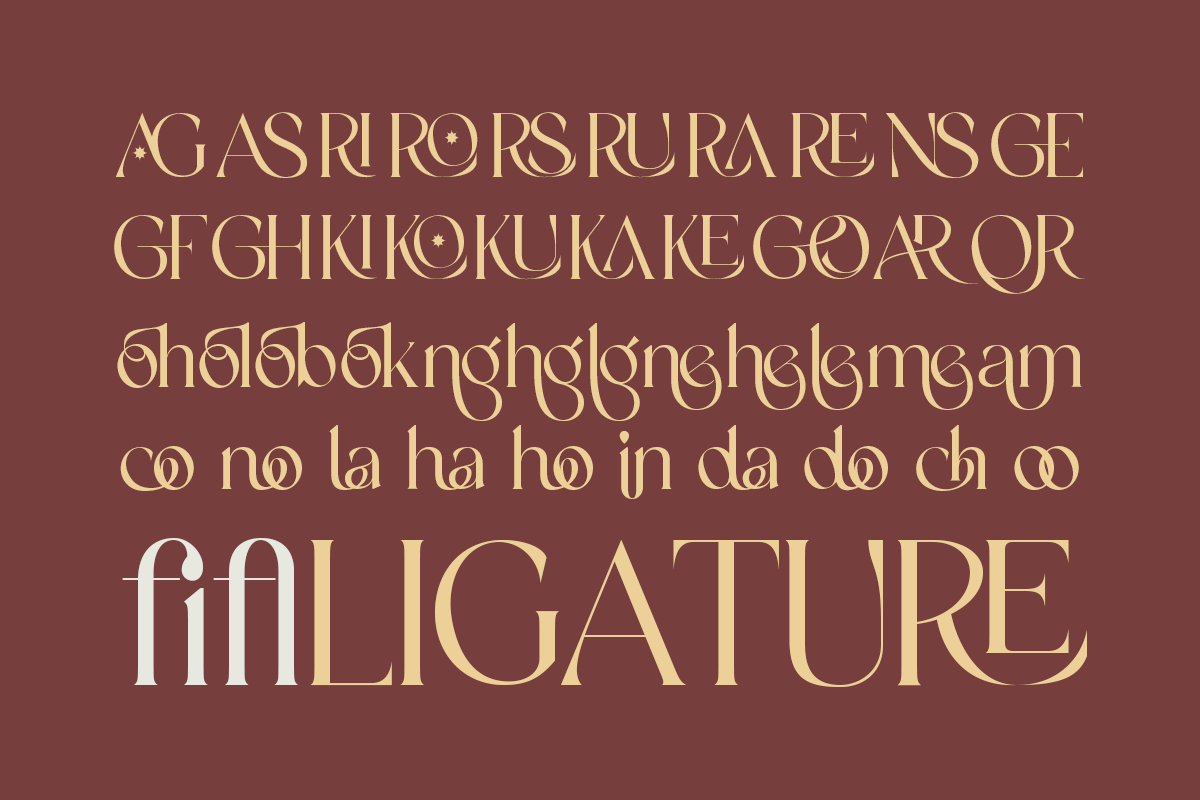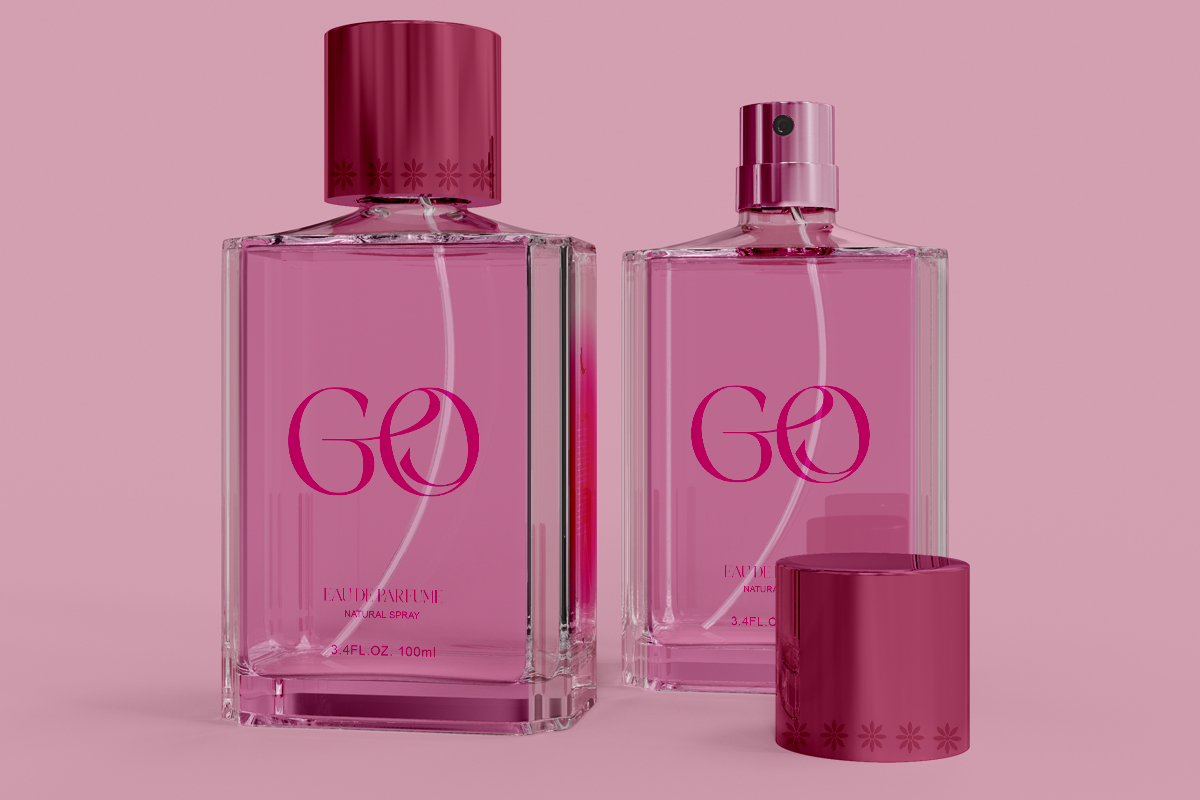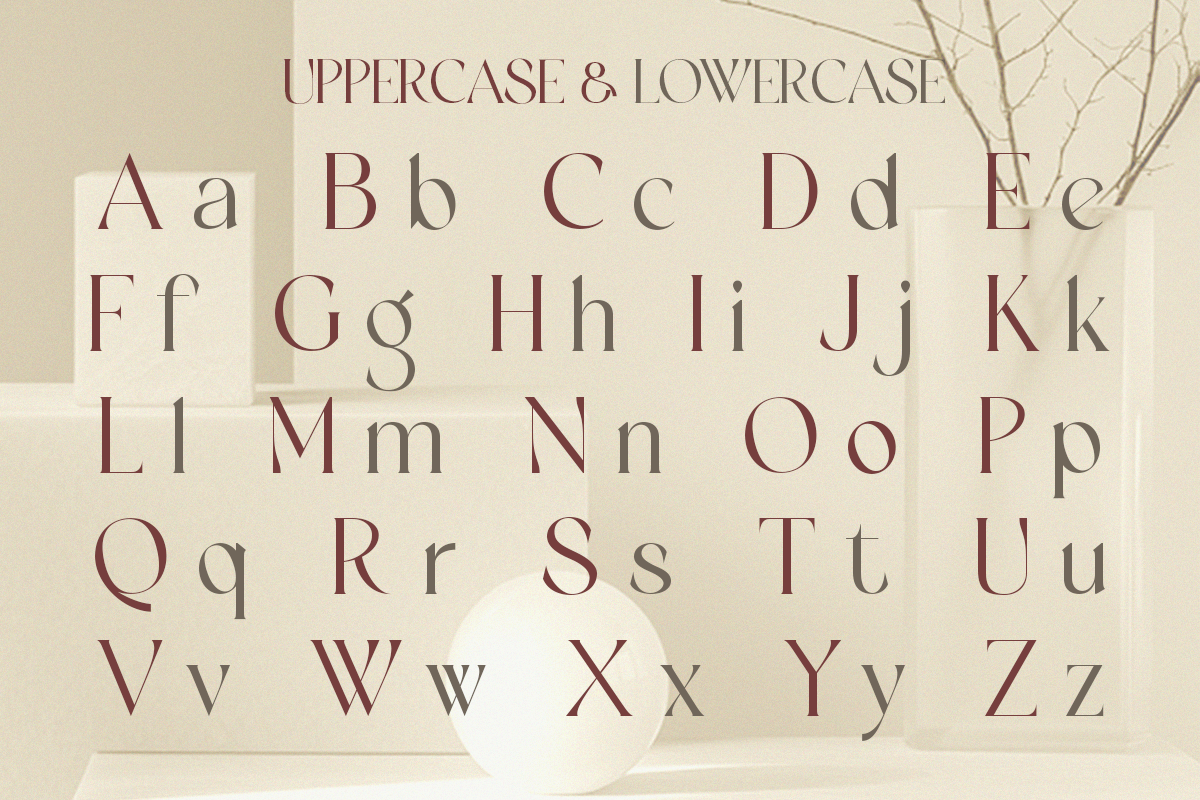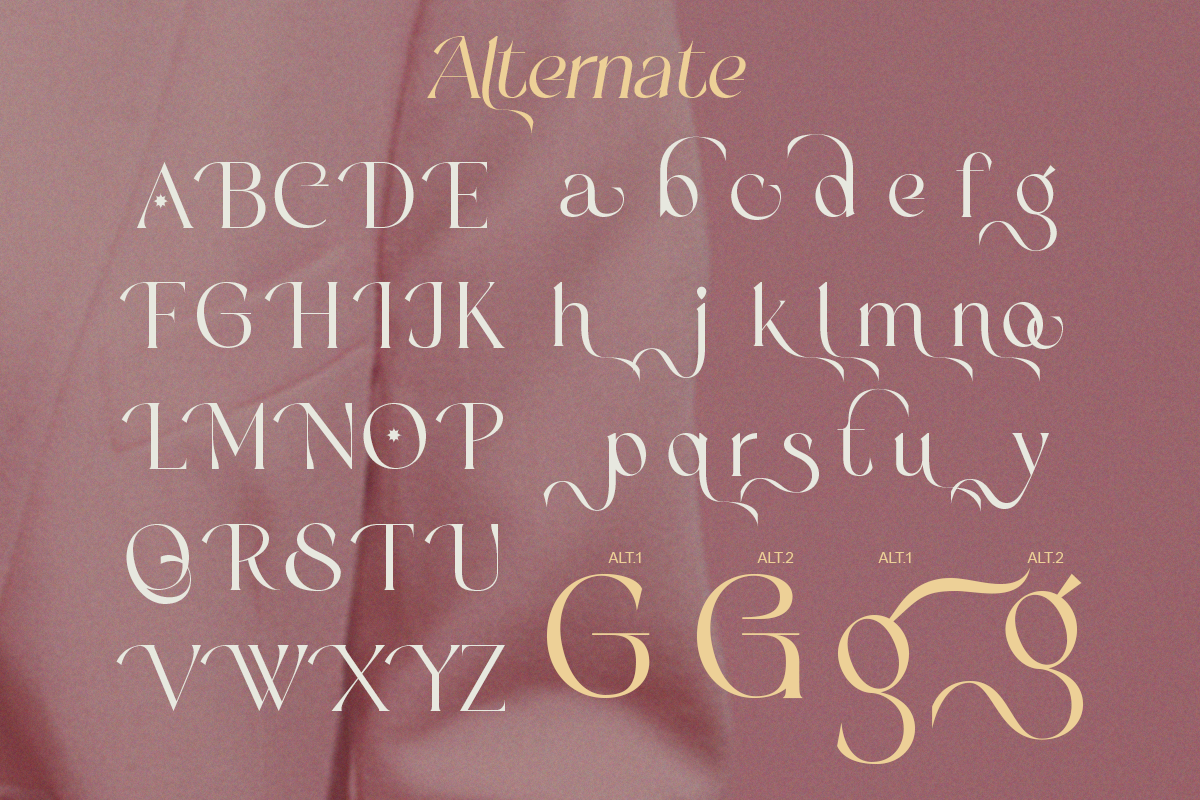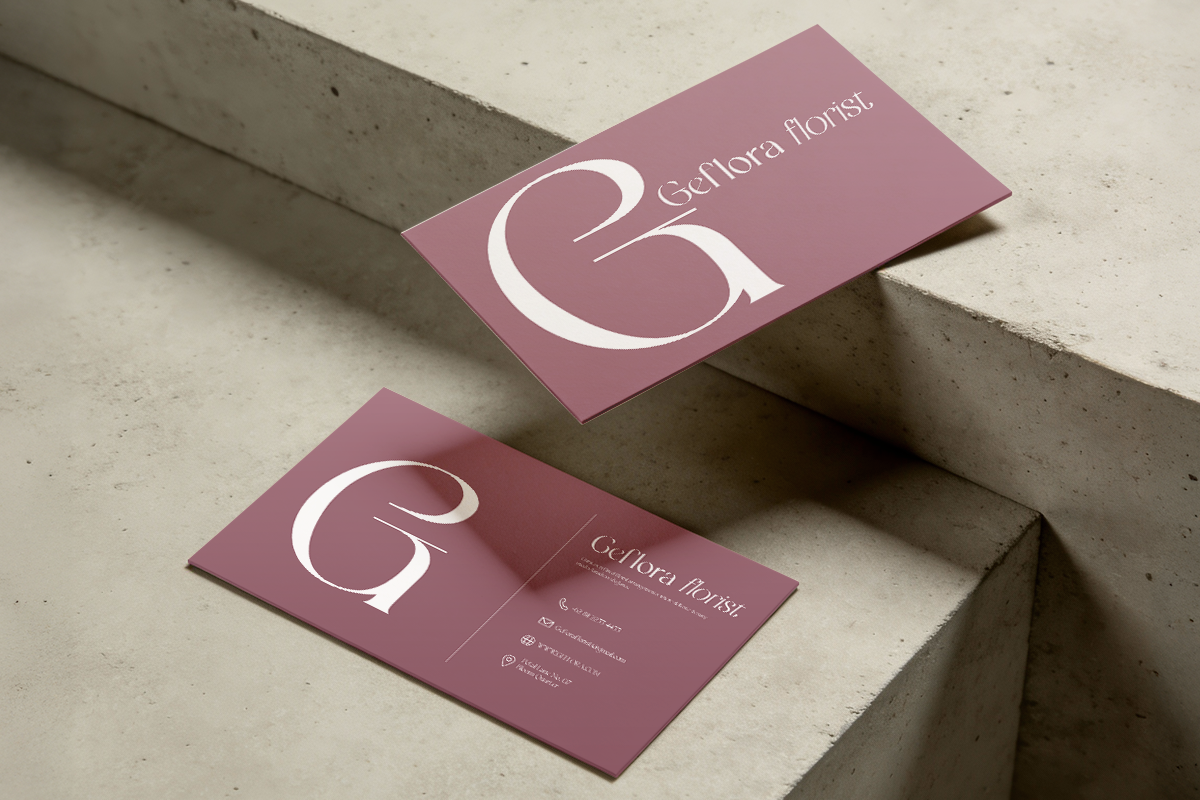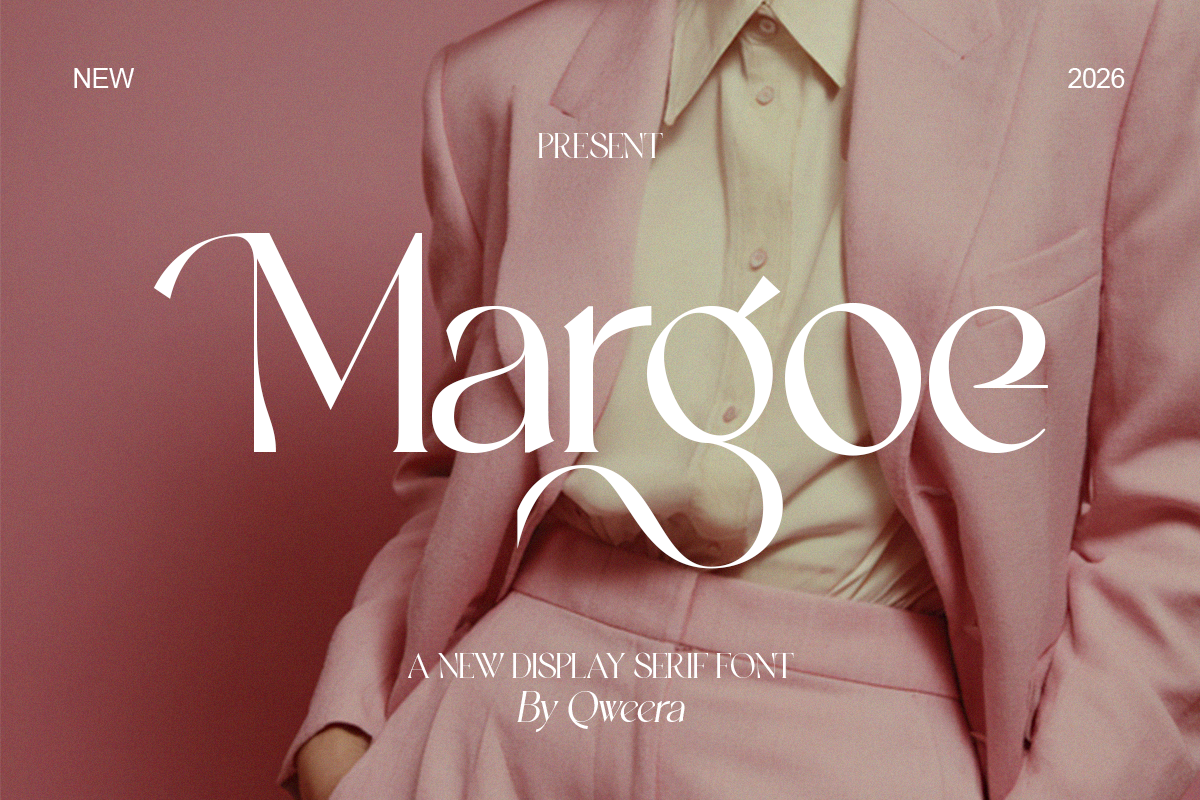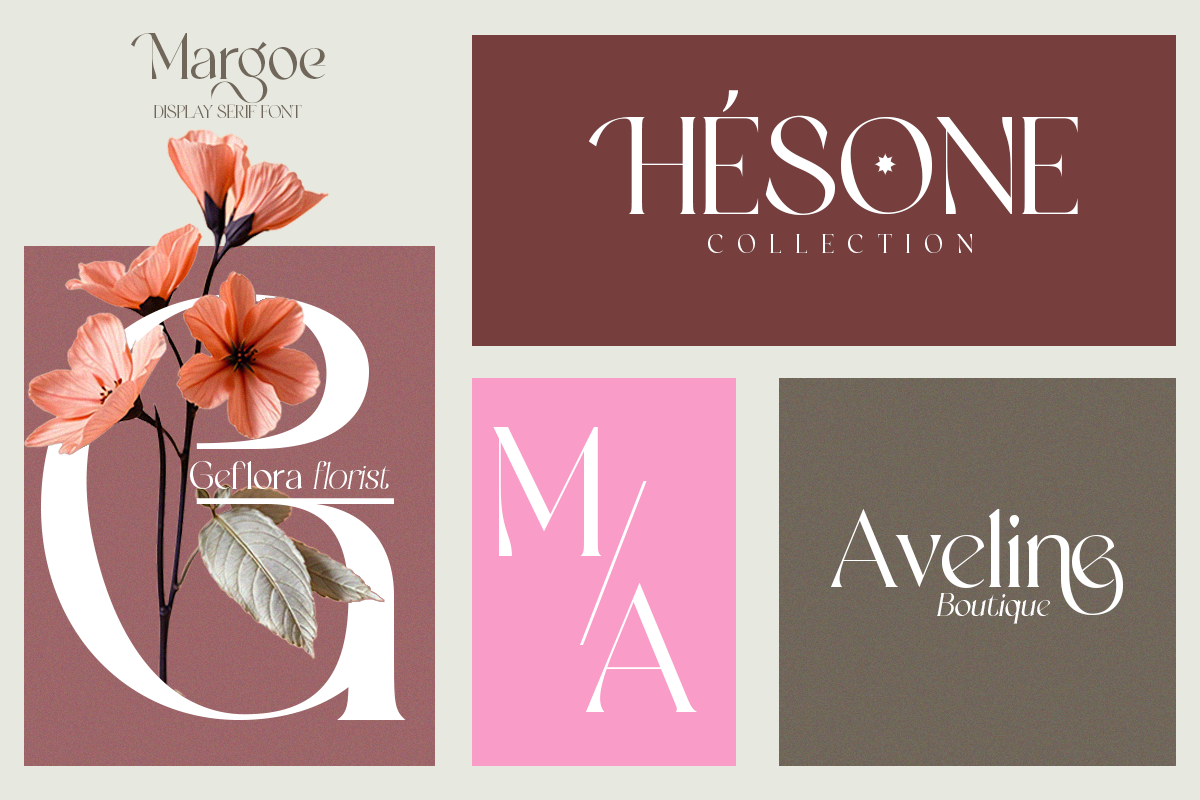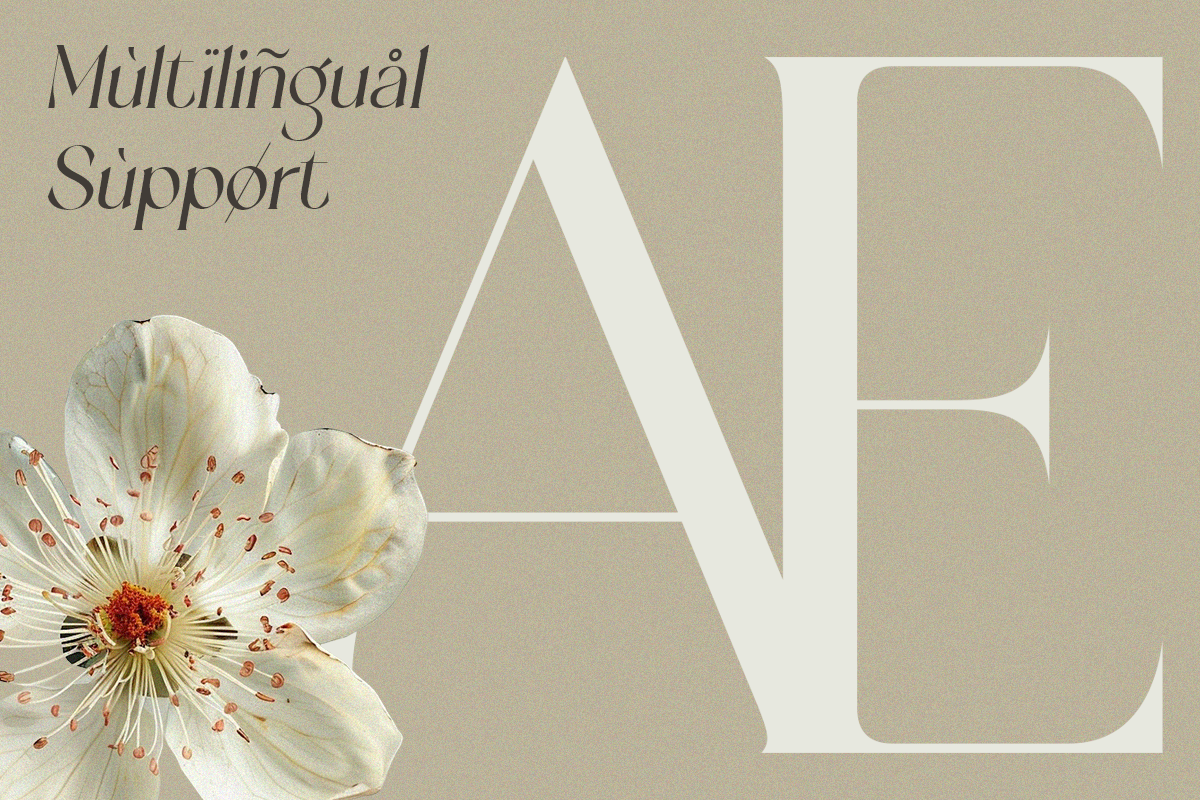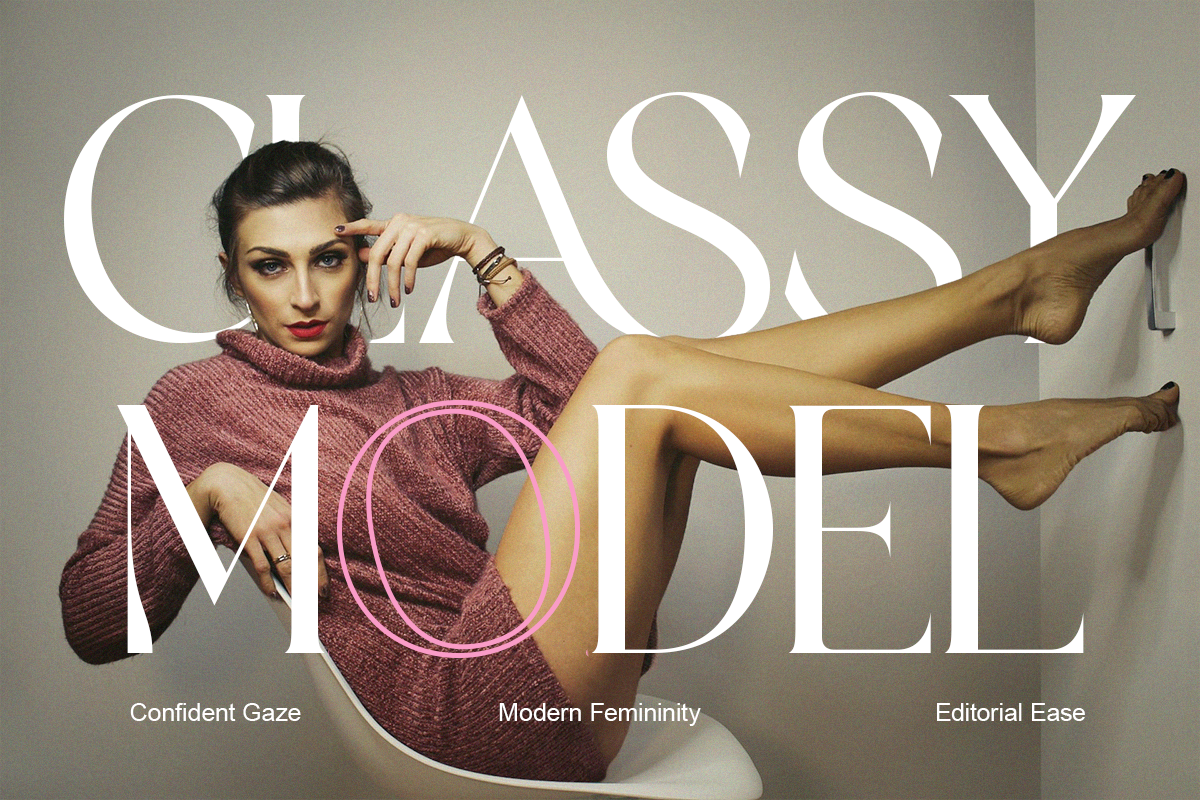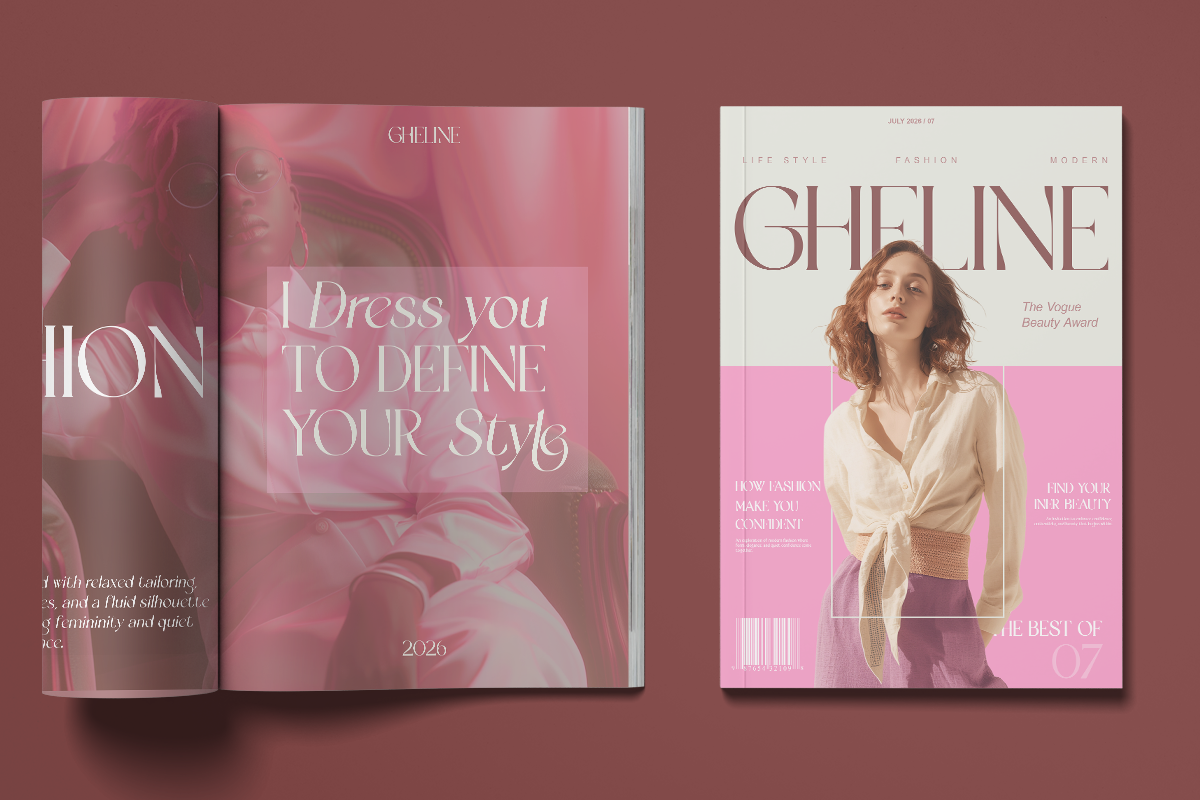
Margoe - Elegant Display Serif Font
Margoe is a refined modern serif typeface made for elegant branding and stylish creative work. Featuring soft curves, graceful contrast, and premium details, it creates a luxurious feminine identity.
Perfect for boutique logos, beauty brands, packaging, wedding stationery, and magazine titles, Margoe delivers timeless elegance with a modern fashionable edge.
Designed for creators who want soft luxury and premium aesthetics.
- Alternates & ligatures
- Regular & Italic
- Luxury serif styling
Beauty branding, boutique logos, invitations, luxury packaging, fashion campaigns, editorial headlines